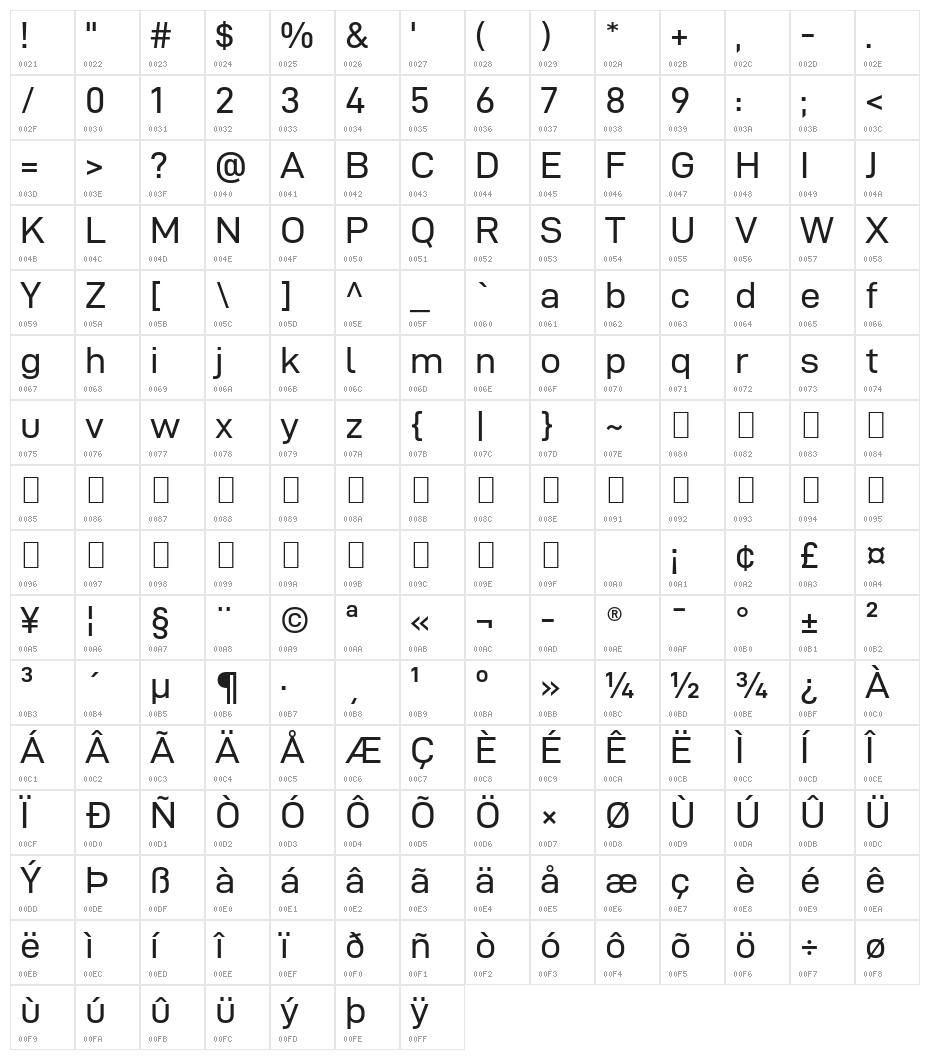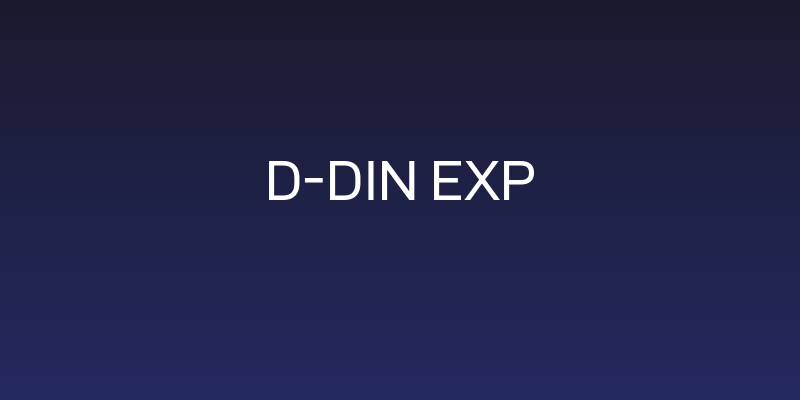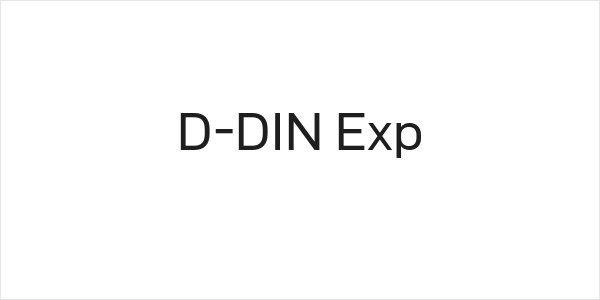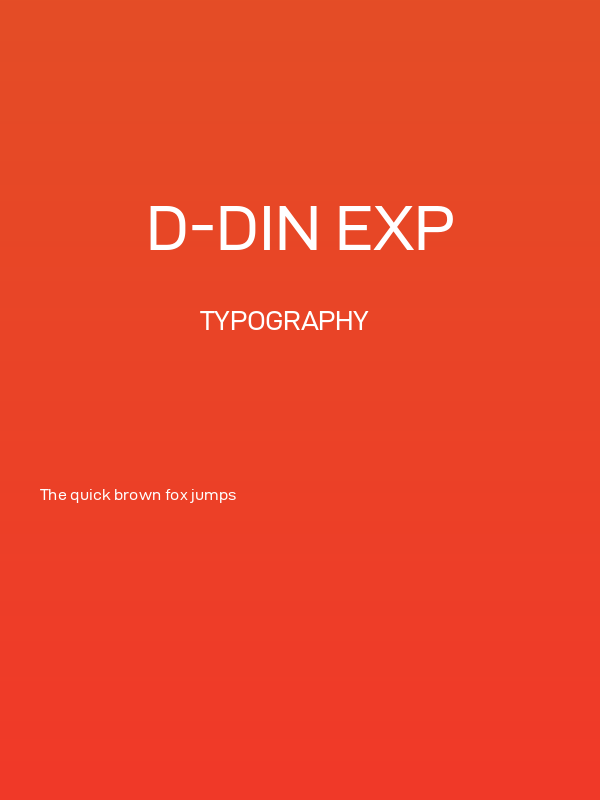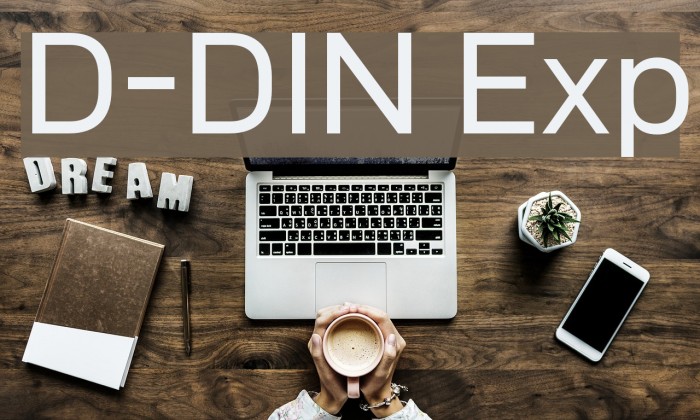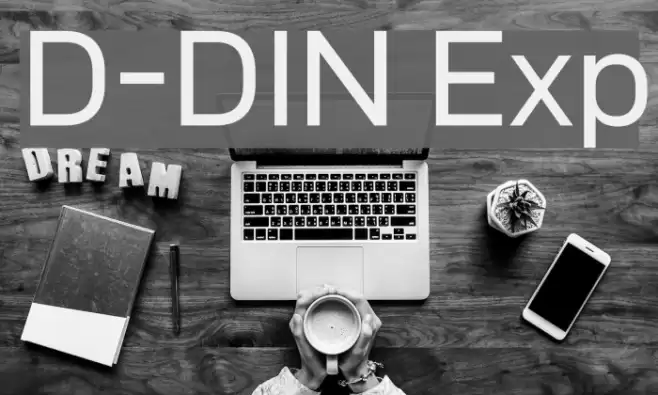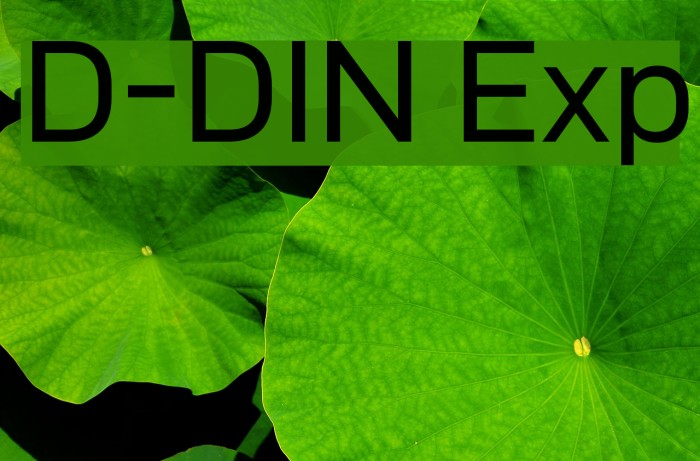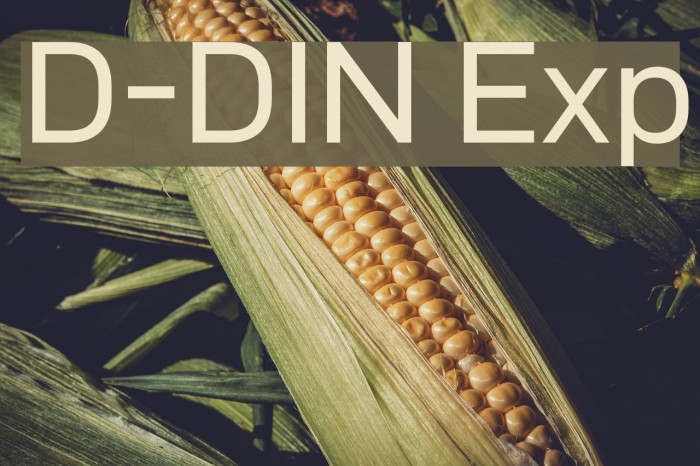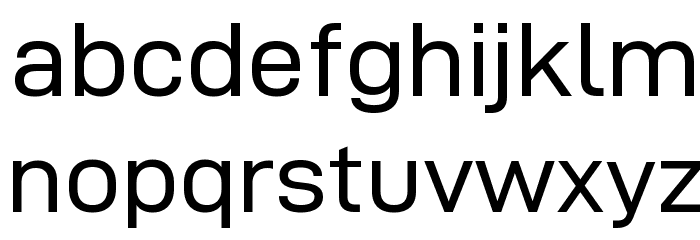
D-DIN Exp Font
D-DIN Exp Description
This typeface exhibits a clean and modern aesthetic with a geometric sans-serif design. The characters are uniform and well-proportioned, offering a sense of clarity and precision. The uppercase letters are bold and commanding, while the lowercase letters maintain a consistent height and width, enhancing readability. The numerals are straightforward and align perfectly with the overall style, making them ideal for data presentation. Special characters are distinct and maintain the font's minimalist approach, ensuring versatility across various applications.
| Use Case | Headlines, Body text, Logos |
| Proposed Projects | Ideal for corporate branding, signage, user interfaces, and editorial design due to its clarity and modern appeal. |